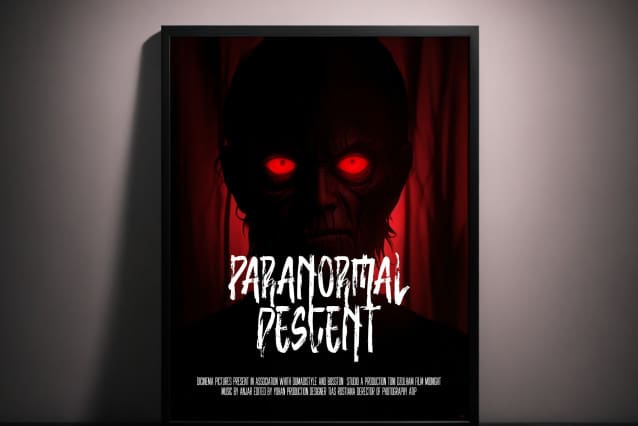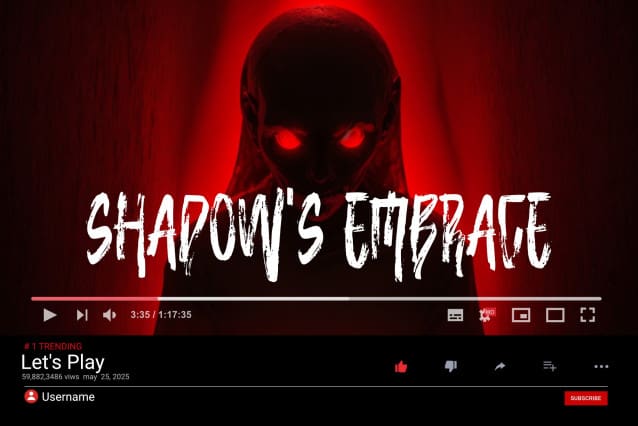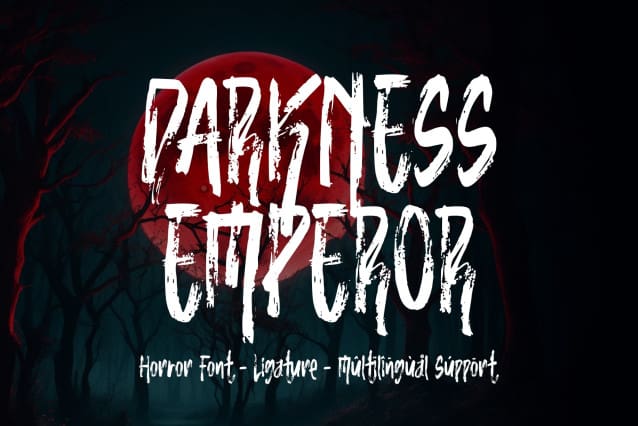
Darkness Emperor Font
Darkness Emperor Font, a Brush Procreate creation, embodies horror with its chilling strokes. Ideal for horror posters, designs, films, logos, and events, this font adds an eerie touch. Crafted for those seeking a spine-tingling aesthetic, it casts shadows that dance ominously, creating an atmosphere of fear and suspense. Whether on a film title or a haunting event poster, Darkness Emperor brings an essence of the supernatural, making it perfect for those delving into the dark side of visual storytelling.